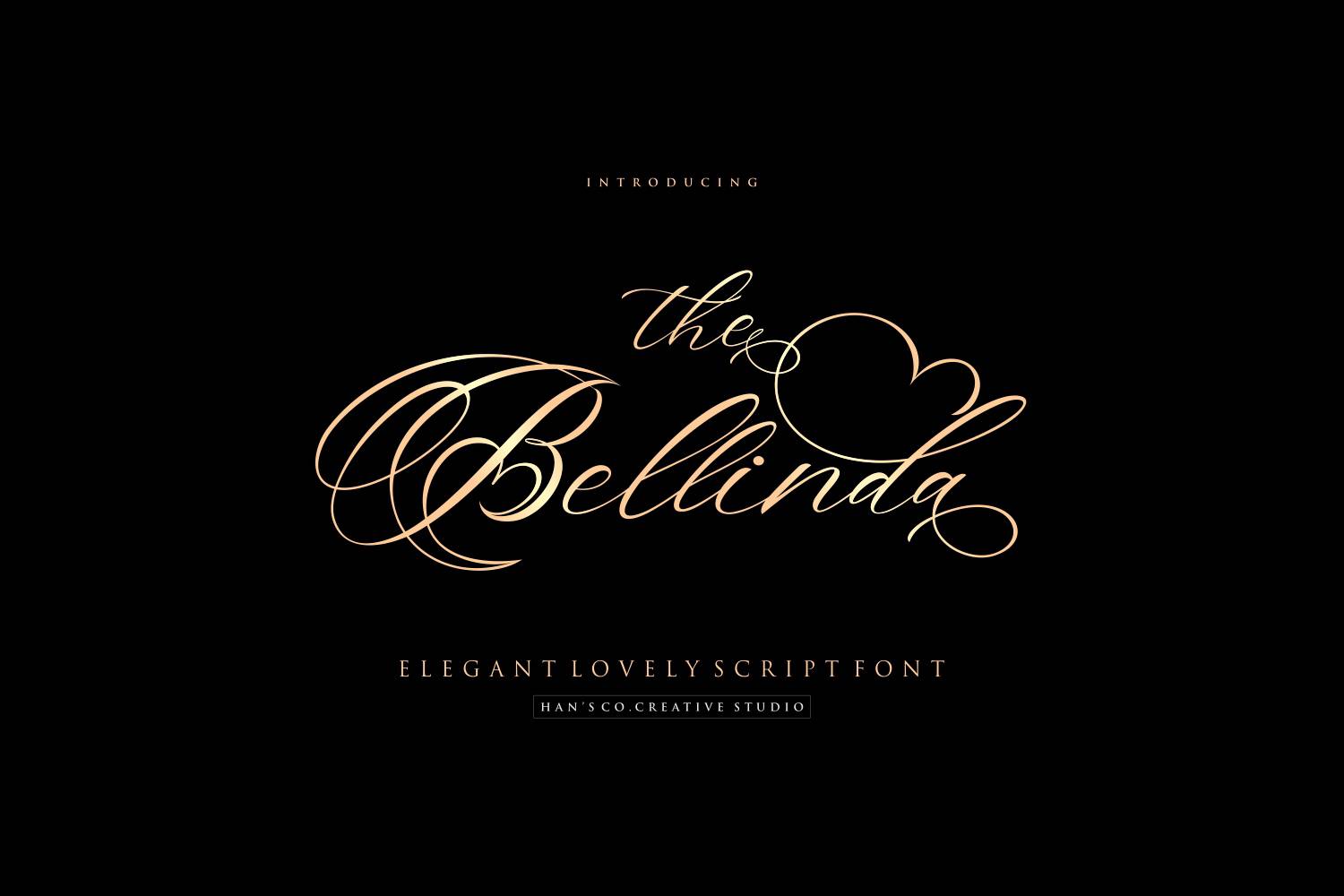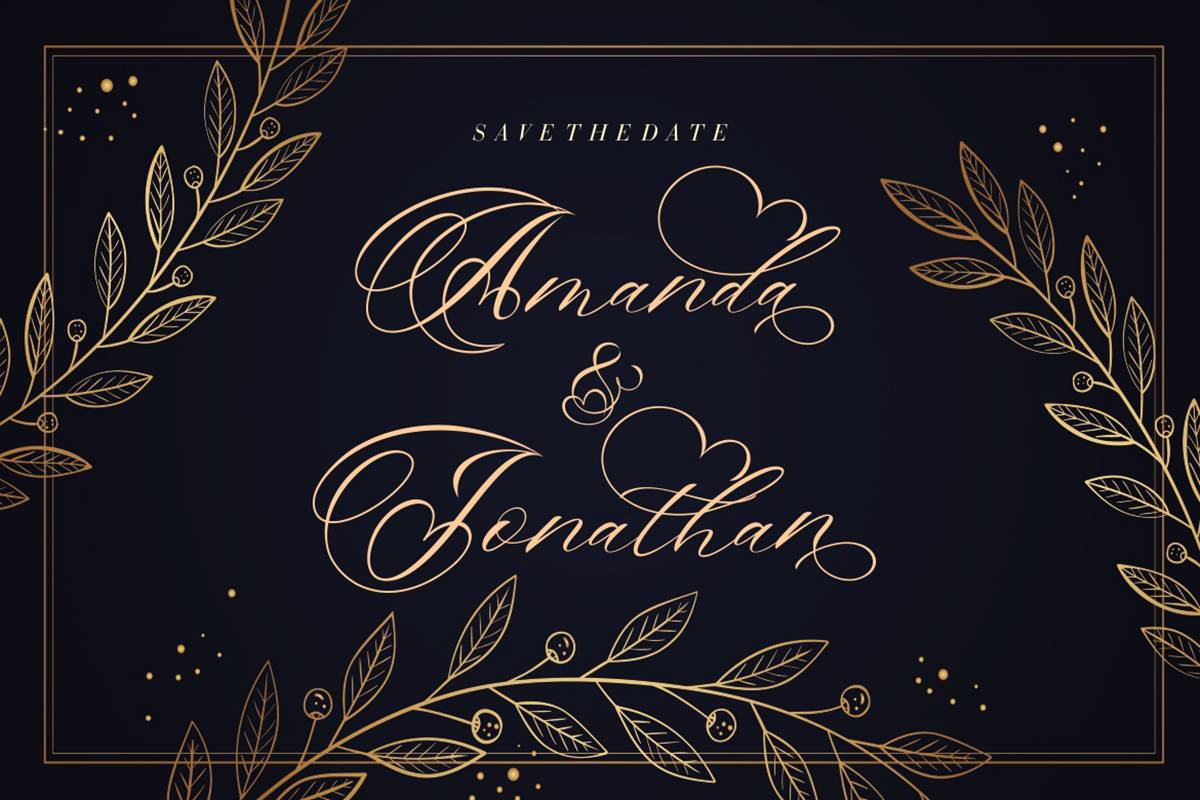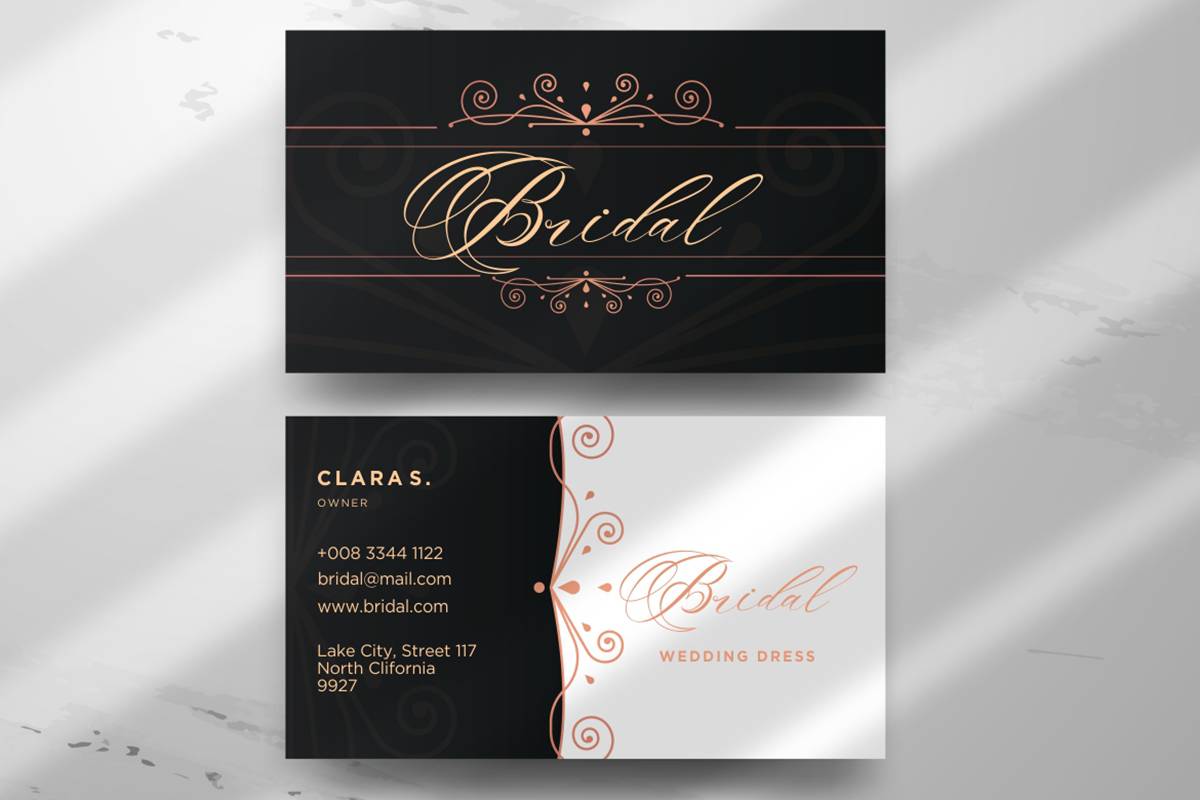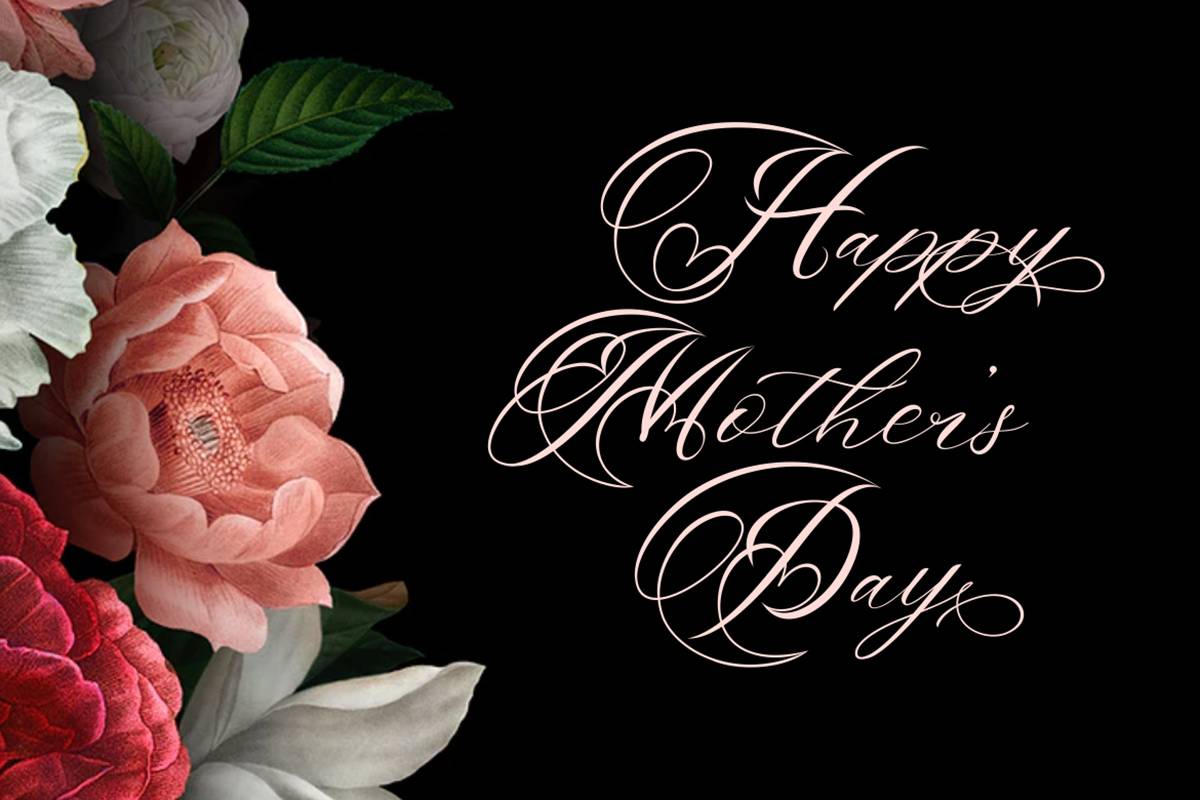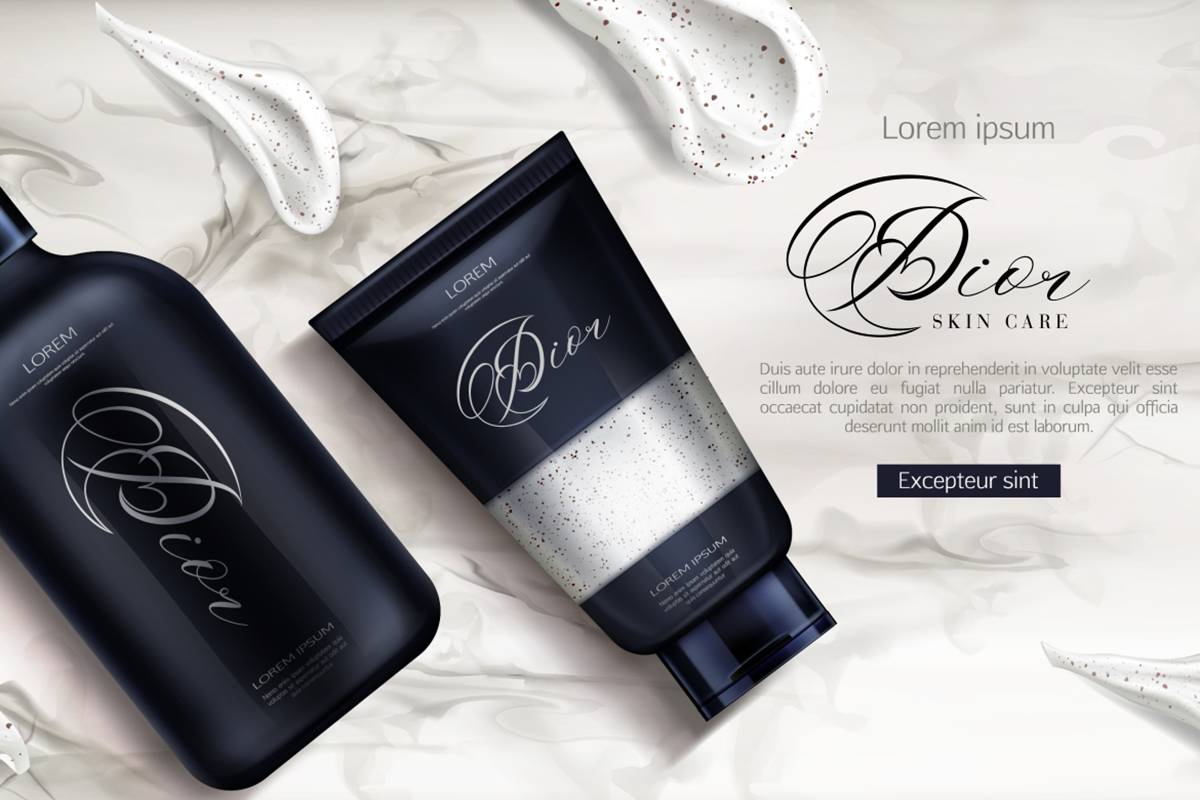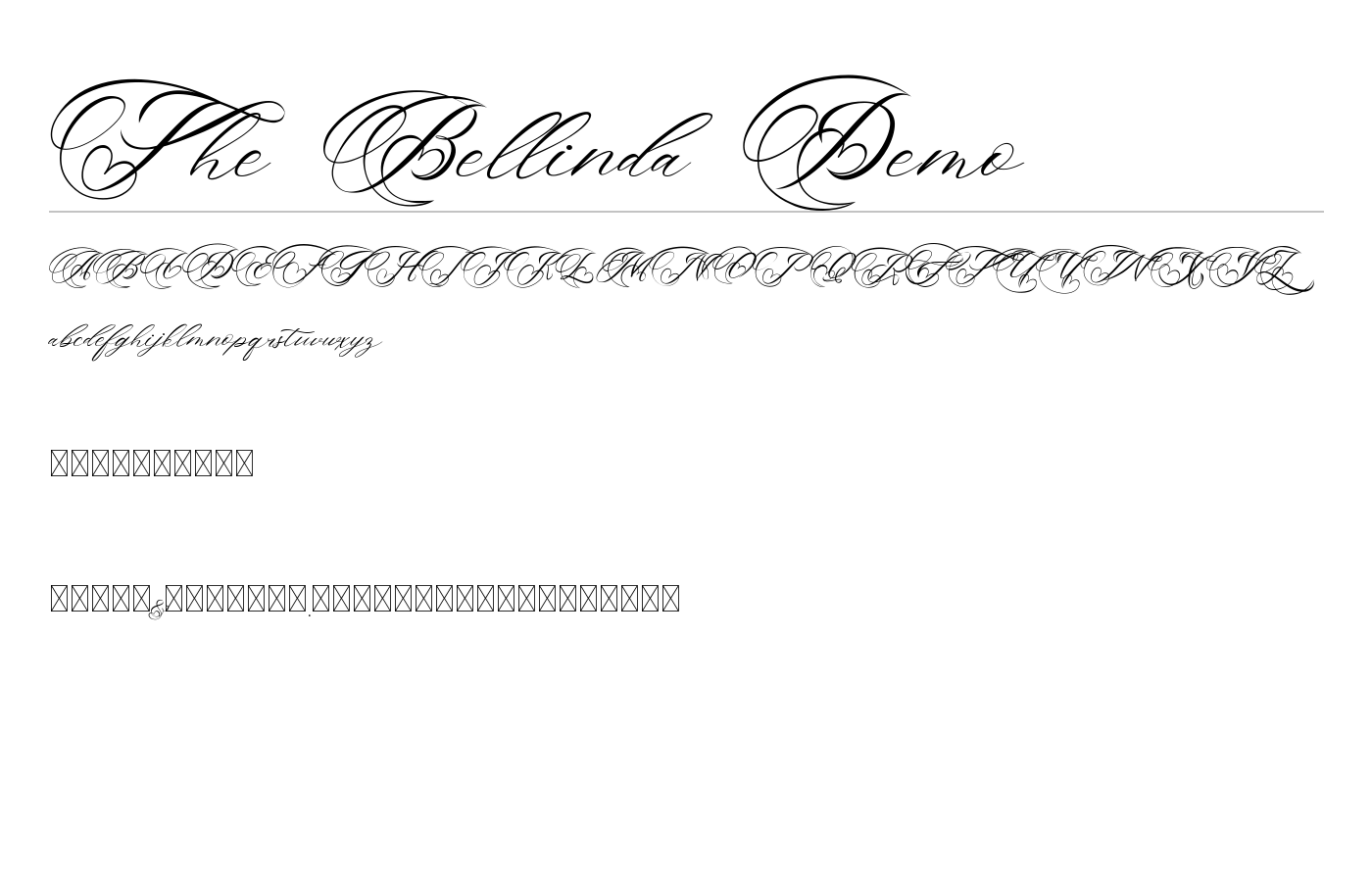
The Bellinda font is an elegant script typeface characterized by its delicate, flowing strokes and elaborate swashes, making it perfect for invitations, branding, and luxury design projects. Its fine, high-contrast lines and ornamental capital letters convey a classic, sophisticated feel that works best in large display settings where its intricate details can shine. This font brings a graceful, timeless charm ideal for creating a refined and romantic atmosphere.
The Bellinda Font
About The Bellinda Font